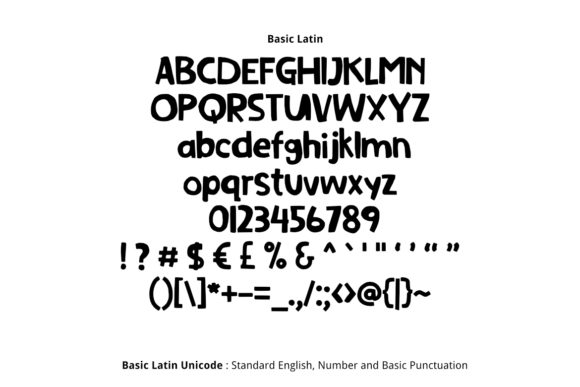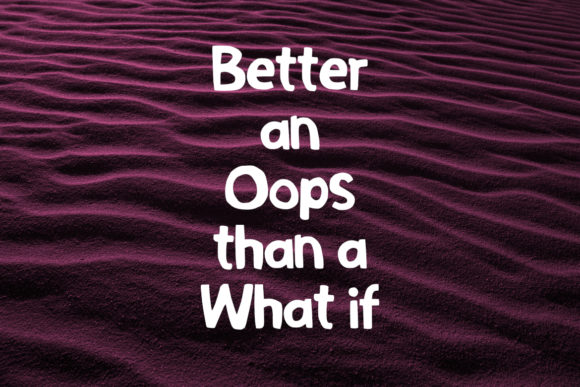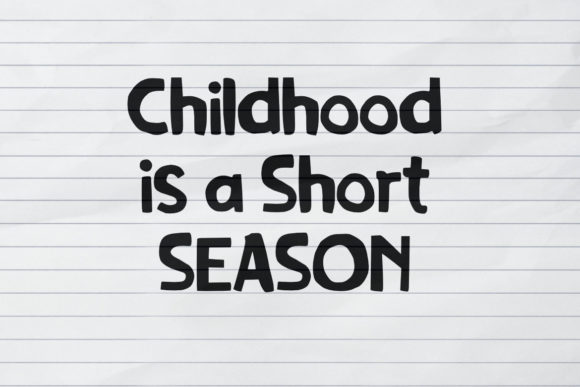
Introducing Bold Scribble Font: Elevate Your Designs with a Unique Touch
In the world of typography, a bold and clean display font can make all the difference in elevating your designs from ordinary to extraordinary. This is where Bold Scribble Font comes into play, offering a fresh and original look that’s perfect for a wide range of crafty ideas. Whether you’re working on letterheads, titles, stationery, or any other design project, Bold Scribble is sure to leave a lasting impression.
What Makes Bold Scribble Font Stand Out?
Bold Scribble Font is characterized by its bold and clean aesthetic, making it a versatile choice for various design applications. Its unique scribble texture adds a touch of personality to any text, setting it apart from more traditional fonts. This distinctive look is not only visually appealing but also highly effective in capturing the attention of your audience.
Key Features of Bold Scribble Font
- Bold and Clean Design: The font’s bold nature ensures that your text stands out, while its clean lines maintain a level of sophistication.
- Unique Scribble Texture: The subtle scribble texture gives the font a handcrafted feel, perfect for designs that aim to convey a sense of creativity and individuality.
- Versatile: Suitable for a wide range of projects, from professional letterheads to creative stationery and eye-catching titles.
- Easy to Read: Despite its bold nature, the font remains highly legible, making it an excellent choice for both headings and body text.
Use Cases for Bold Scribble Font
The versatility of Bold Scribble Font means it can be used in a multitude of design projects. Here are a few ideas to get you started:
- Letterheads and Business Cards: Add a professional yet personal touch to your business correspondence with a bold and unique font.
- Titles and Headings: Use Bold Scribble to create eye-catching titles for presentations, posters, and digital content.
- Stationery: Elevate your stationery designs, such as notebooks, journals, and planners, with a font that exudes creativity.
- Branding and Logos: Incorporate Bold Scribble into your brand’s typography for a distinctive and memorable look.
Tips for Using Bold Scribble Font Effectively
To make the most of Bold Scribble Font, consider the following tips:
- Pair with Simpler Fonts: For body text or secondary information, pair Bold Scribble with a simpler, clean font to maintain readability and visual balance.
- Experiment with Colors: While the font’s texture is a key feature, playing with different colors can further enhance its appearance and adaptability.
- Use for Emphasis: Utilize Bold Scribble for headings or key points to draw attention and guide the reader’s eye through your content.
Bold Scribble Font is a powerful tool for designers and crafters looking to add a unique and bold touch to their projects. Its distinctive scribble texture, combined with its clean and bold design, makes it an excellent choice for a variety of applications. By incorporating Bold Scribble into your typography arsenal, you’ll be well-equipped to create visually stunning and memorable designs that stand out from the crowd.
Whether you’re a seasoned designer or a DIY enthusiast, Bold Scribble Font invites you to explore new creative possibilities and elevate your designs to new heights. So why wait? Dive into the world of Bold Scribble and discover how this versatile font can transform your projects.